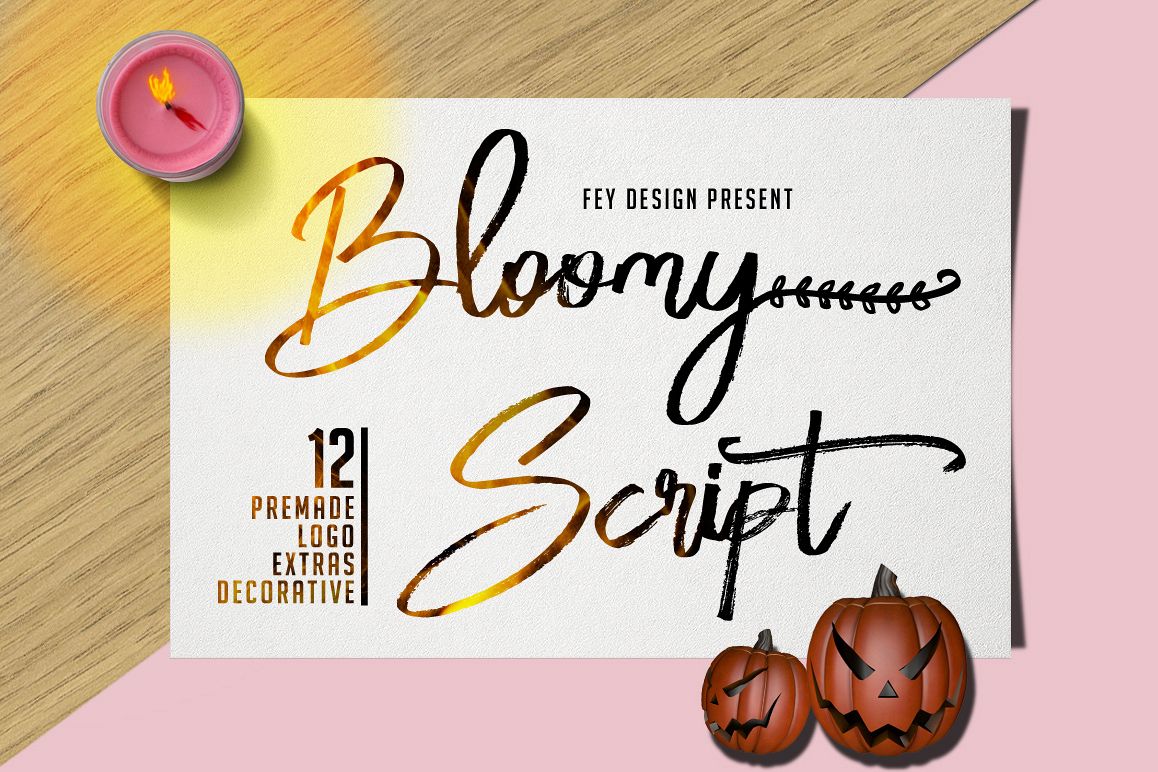
Bloomy Script
Bloomy Decorative
Bloomy Script Al
Bloomy Scrip
Bloomy Script - Handwritting Font
Bloomy Script is Dry Brush Script Font with handletter style, with unique script modern calligraphy include decorative doodles and 12 premade logos. Suitable for design, element design, wedding, event, t-shirt, logo, badges, sticker, and awesome work, etc...
Feauture Of The Font:
- Bloomy Script Decorative Doodles, There are swashes handwritting dry brush marker and decorative doodles for make type design perfect.
- 12 Premade Logos Include
- Unique style fonts